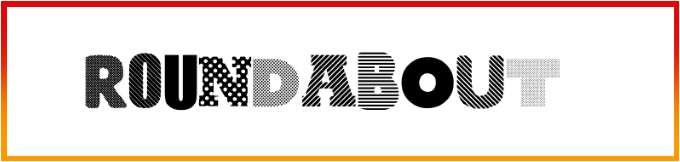
Roundabout
Roundabout is a fancy font designed by Imagex (2013). Bold and full of character, it's built to stand out rather than blend in. You can download it for free and test it with your own words in the preview above.
- Designer: Imagex
- Year: 2013 (from the copyright line in the font)
What You Can Type With Roundabout
With complete upper and lowercase letters and all ten digits, Roundabout is ready for real wording, not just a single headline. Common punctuation such as &, !, ? and # is included as well. It doesn't include accented letters such as é or ñ, which makes it an English-only font.
Where Roundabout Works Best
Designers usually reach for fonts like Roundabout when they're making posters, logos and eye-catching headlines. The file has no kerning data, so in logos and big titles check pairs like AV, To and Wa and tighten the spacing by hand. Use it for one standout word or headline and let simpler fonts handle the rest.
Who designed Roundabout font?
Does Roundabout support accented letters?
No. Roundabout has no accented letters such as é, ñ or ü, so it's best for English text.